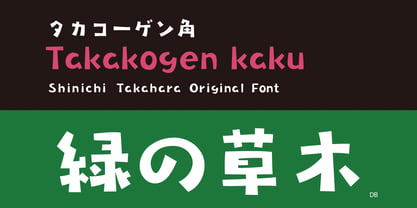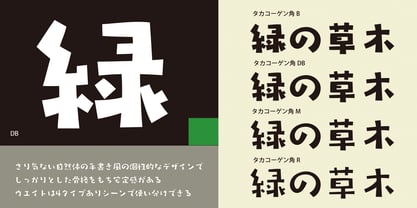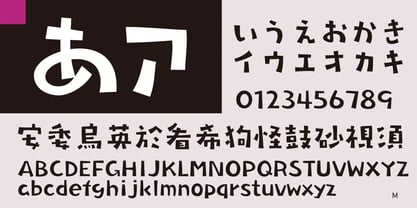
Takakogen-kaku
This is the same design as the handwritten typeface “Takakohgen,” a clean version with the roughness of the outline removed. It is a very natural handwritten style skeleton with a solid and calm image.